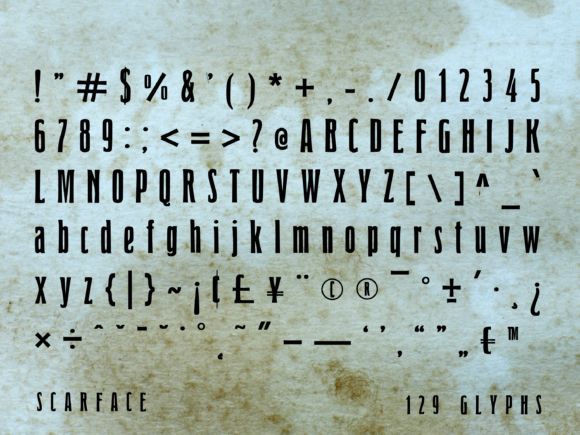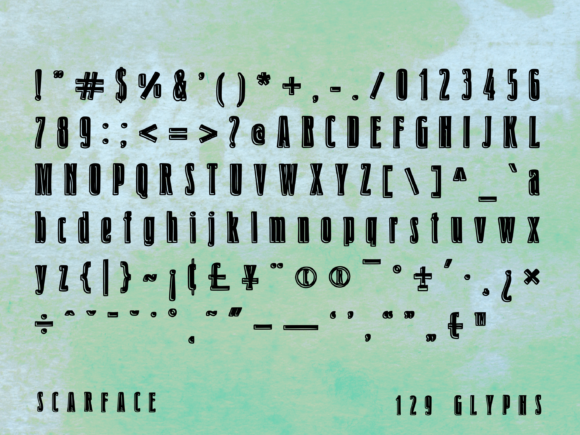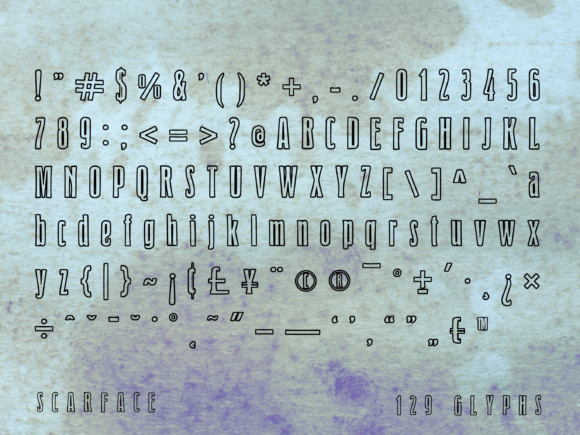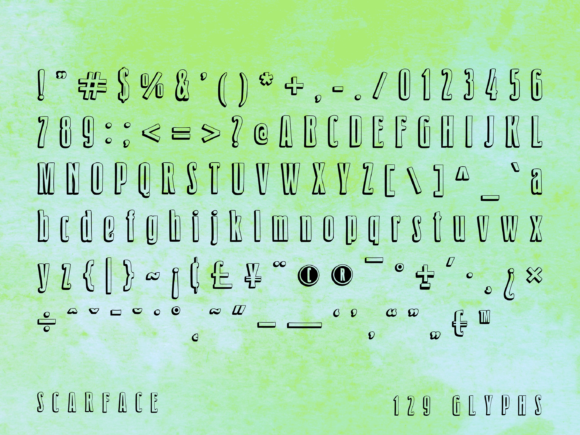
Introduction to Scarface Font
Scarface is a bold and thick lettered display font.
It is suitable for logotype, headline font, in corporate identity, brand identity, apparel industry, poster, music, movie, game, magazine, book, comic, cartoon, YouTube, Instagram, website, or any of your creative design projects .
Key Features of Scarface Font